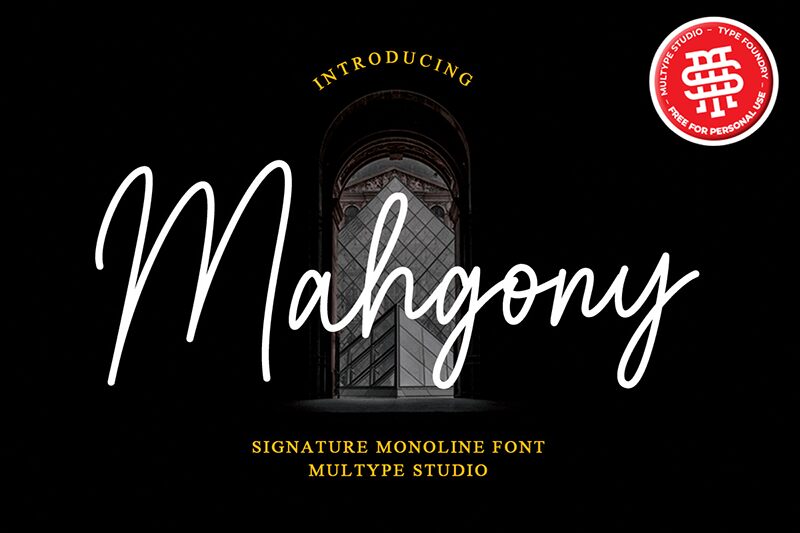
Elegance meets simplicity in Mahgony, a handwritten, signature monoline font meticulously crafted by Multype Studio. With its light and delicate weight, this font carries an air of sophistication that brings a personal touch to every design. Mahgony's unique and elegant curves flow effortlessly, making it an ideal choice for a variety of creative endeavors.
Whether it's elevating the aesthetic of photography watermarks or adding a bespoke feel to social media posts, advertisements, and logos, Mahgony's versatility shines through. Its charm is equally at home on invitations, product designs, labels, stationery sets – even wedding elements and specialty packaging. If your project demands the grace of handwriting with the finesse of professional design, Mahgony is your quintessential ally.